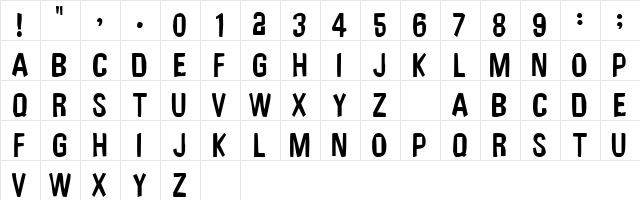
UnfinishedSympathy2 Regular Font Preview
UnfinishedSympathy2 Regular
Design Context for UnfinishedSympathy2 Typeface
UnfinishedSympathy2 takes a measured approach to typography — its balanced proportions and neutral character make it a reliable workhorse for both digital and print work.